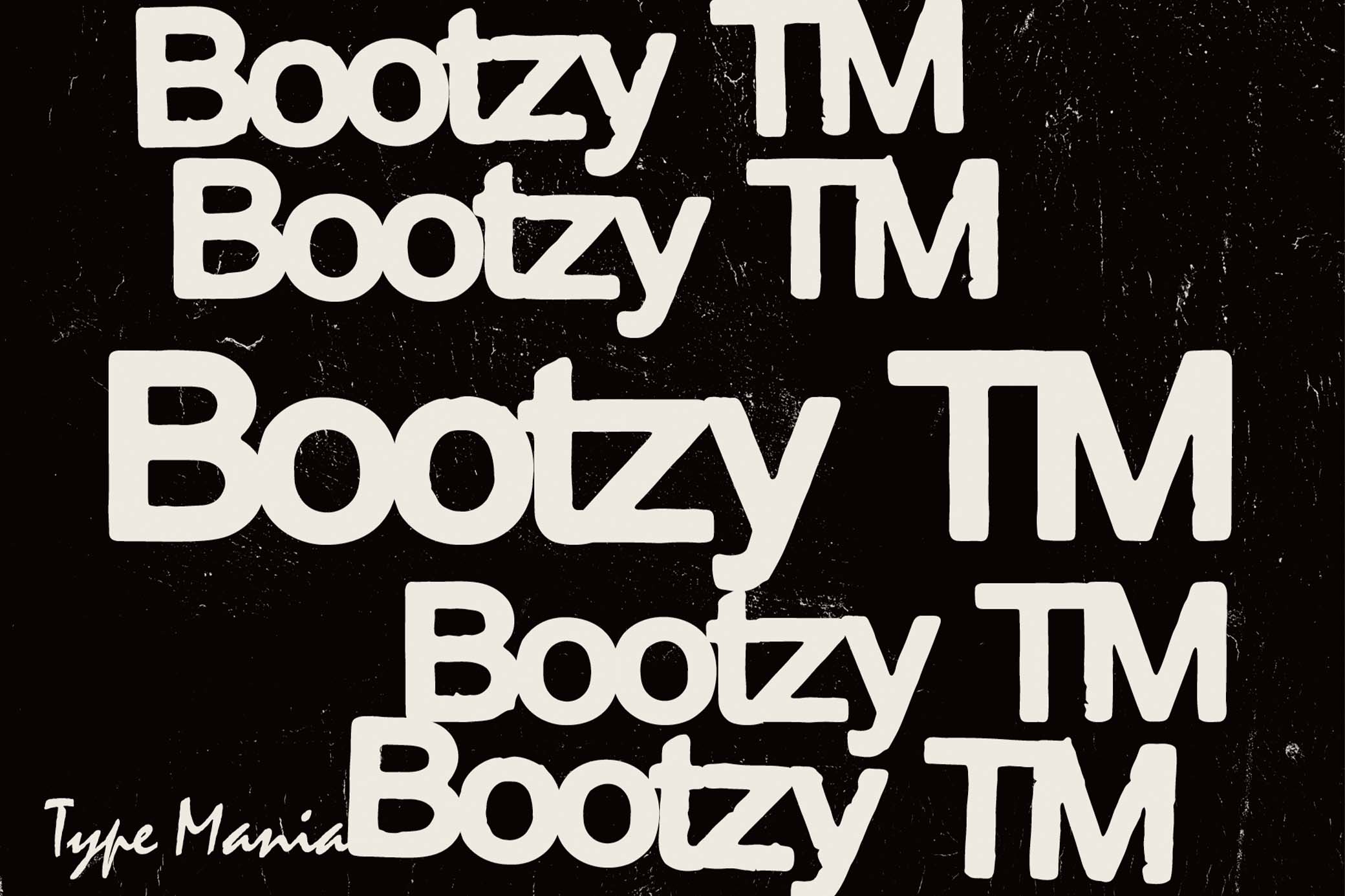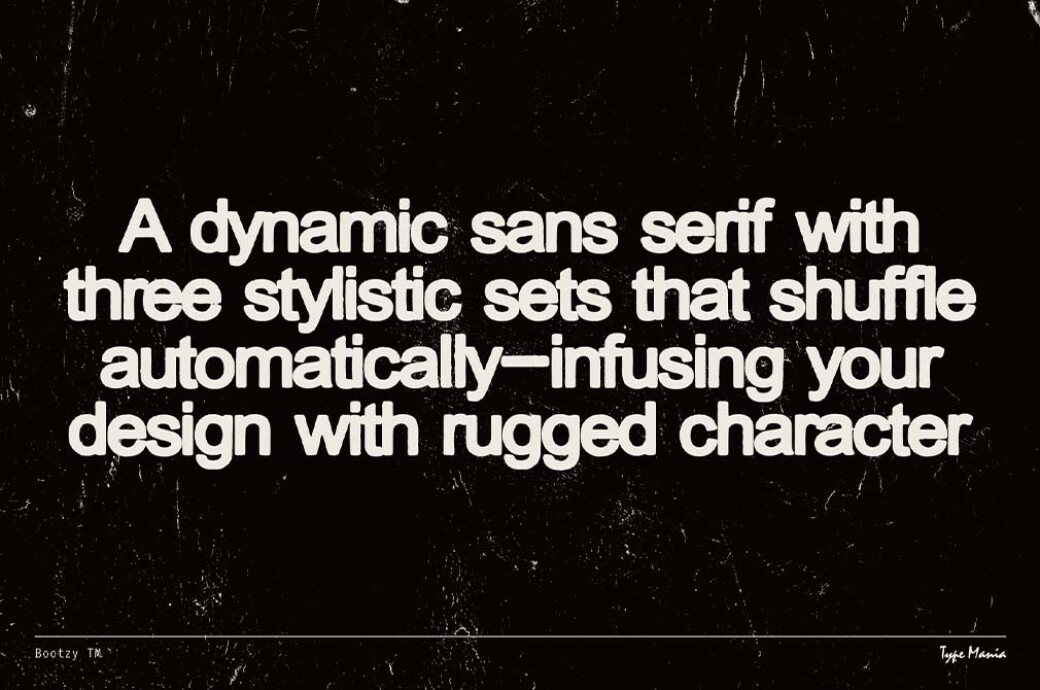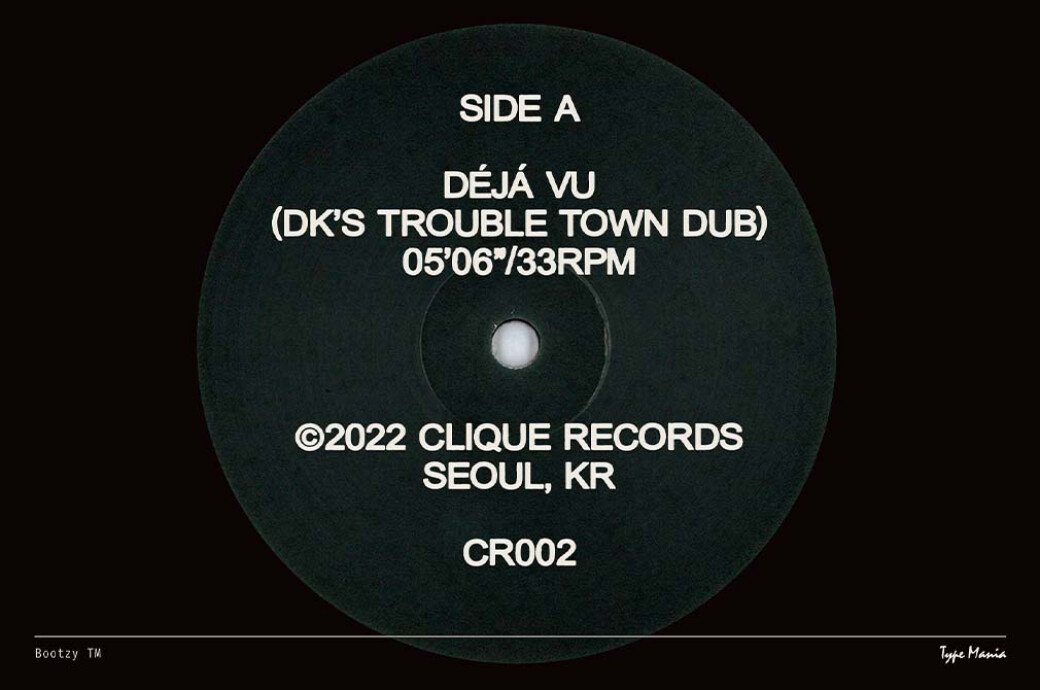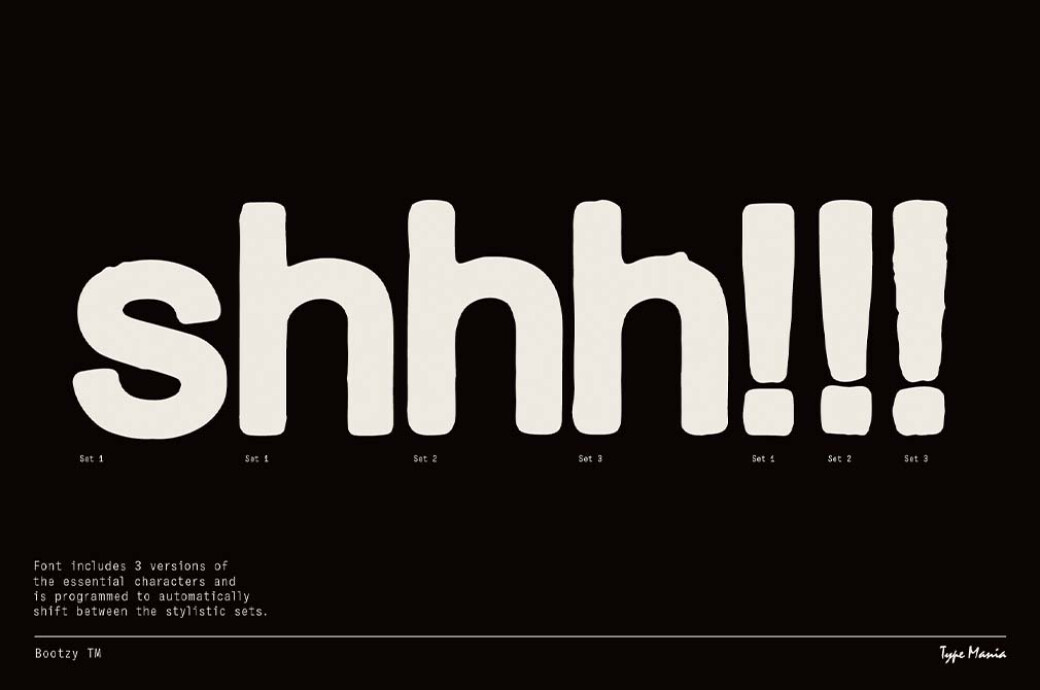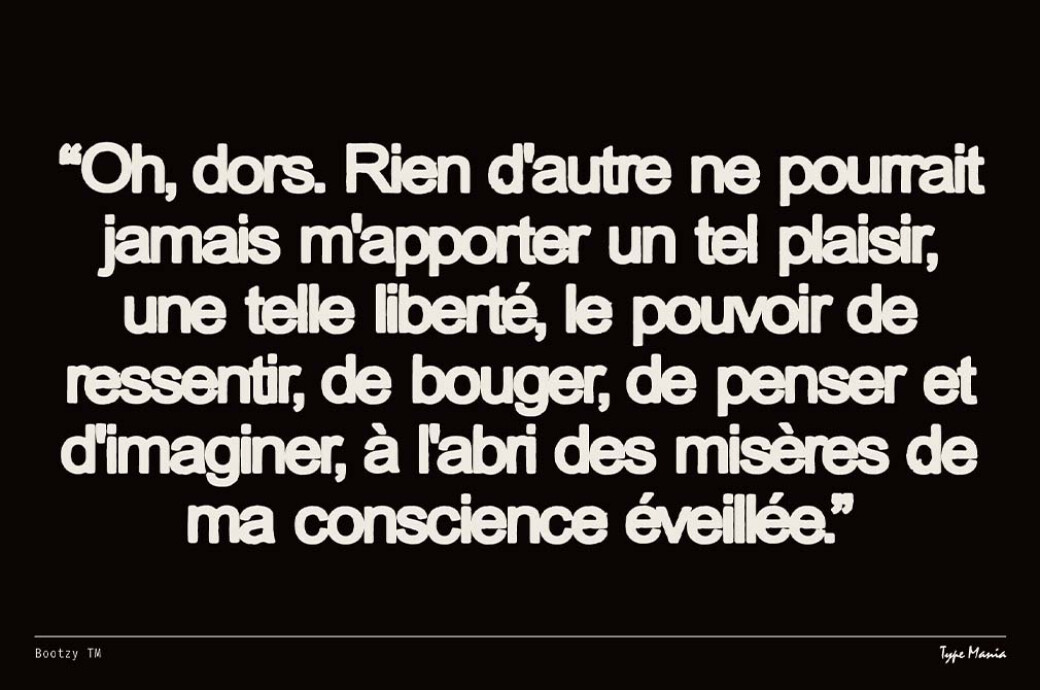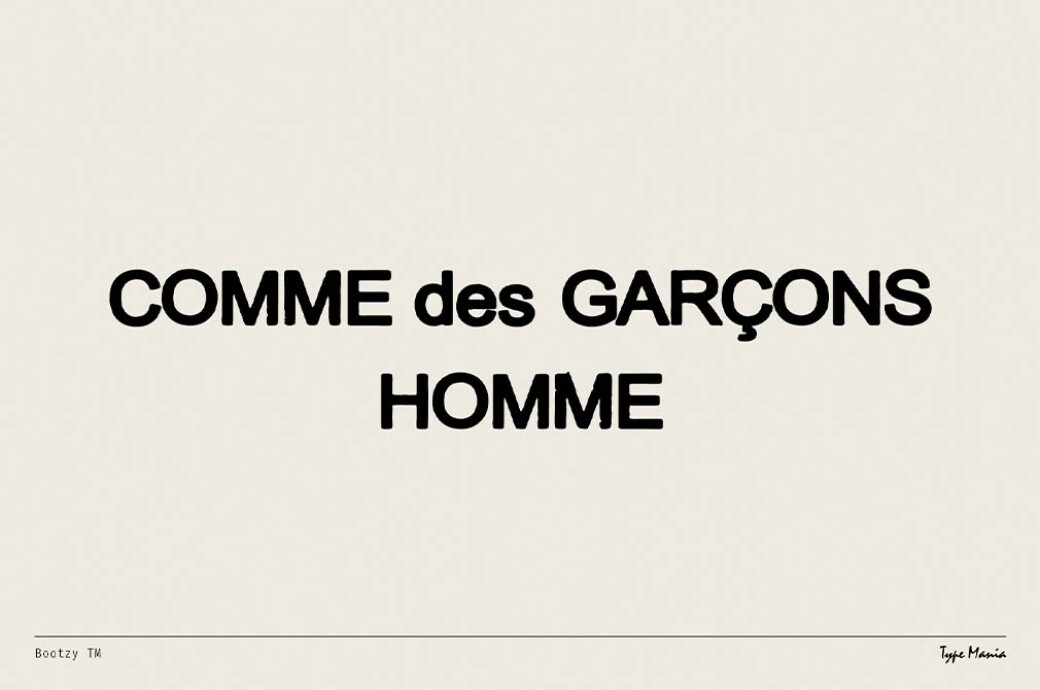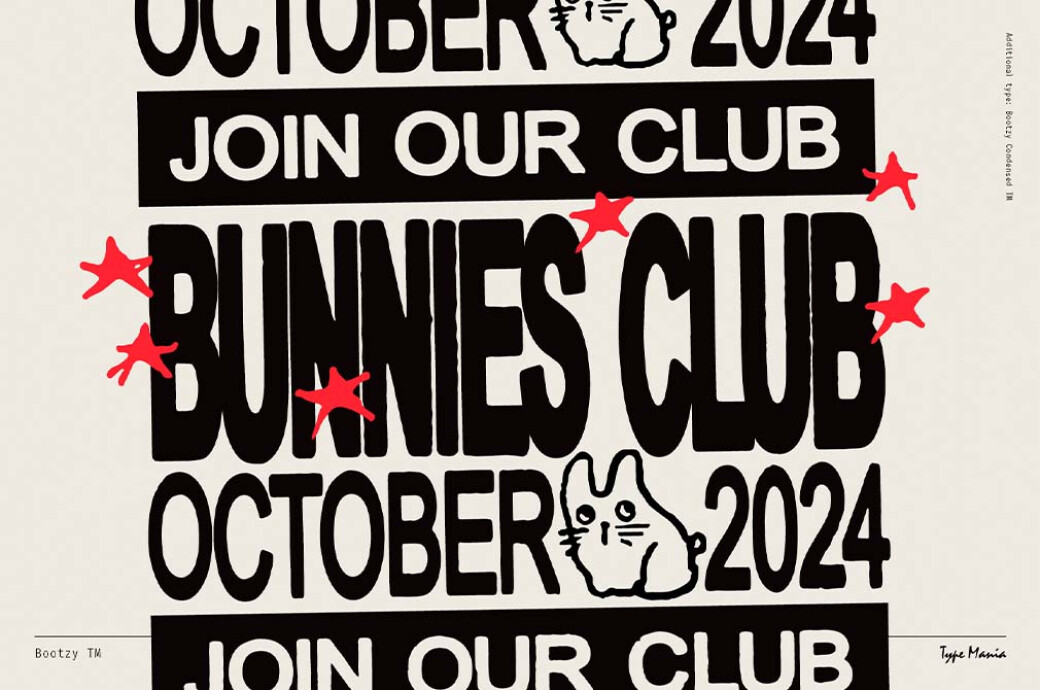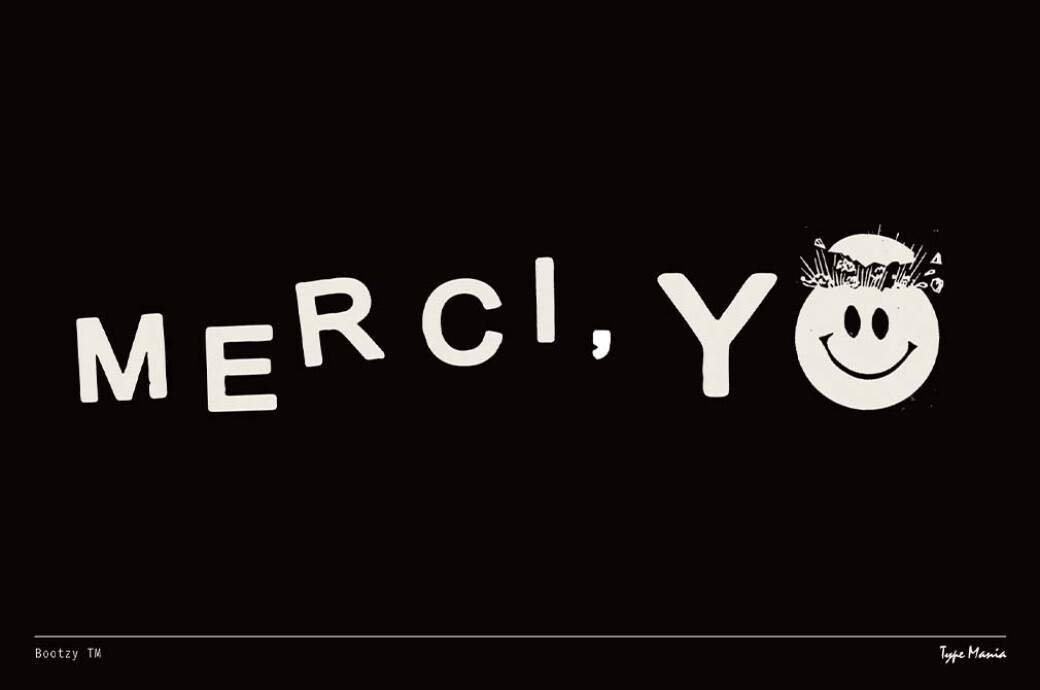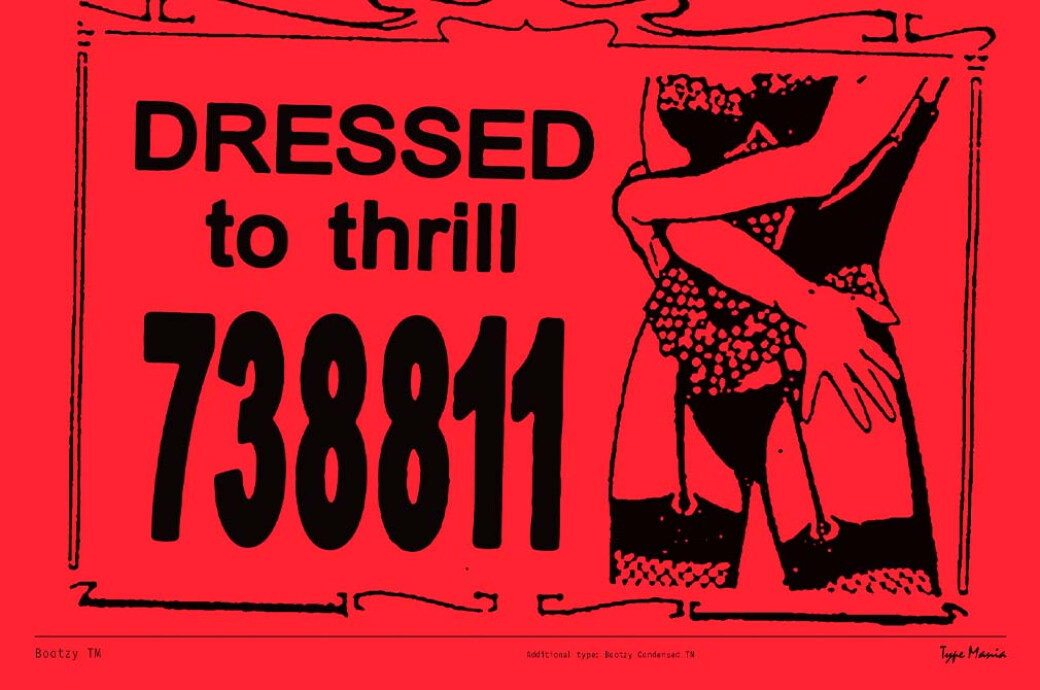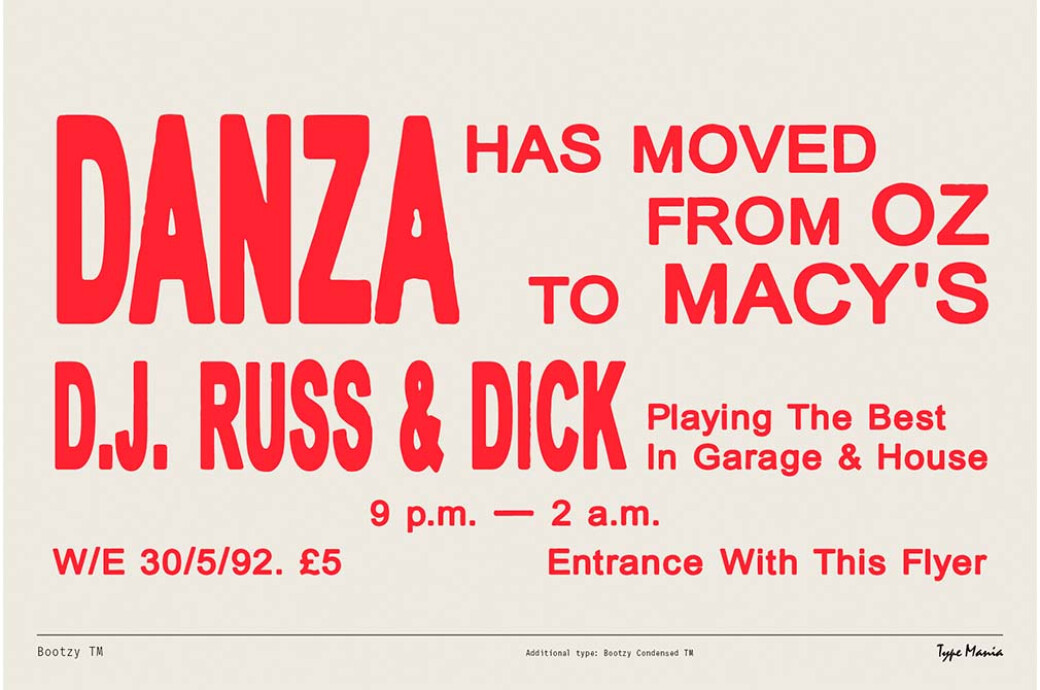
Bootzy TM | Rugged Dynamic Font
We still savor an infatuation with French New Wave posters, vinyl records, and minimalistic fashion brands. What brings them together is rough sans serifs used in those.
Bootzy TMhas hidden all the visual allure you fell in love with — even the rugged edges add a bit of grunge to balance aplomb and boldness. It includes a wide range of features, so let's count: alternates, ligatures, numerals, punctuation, uppercase and lowercase letters. Need more brusque vibes? Pair the font with Y2K vectors to attain a more retro look.